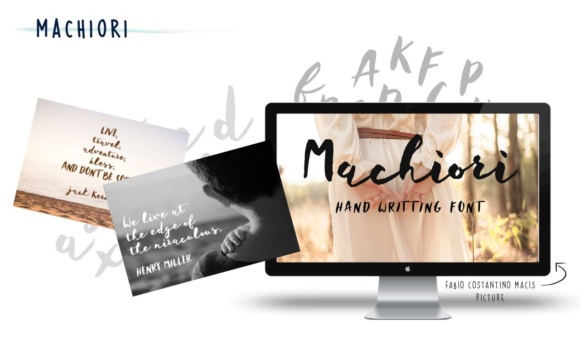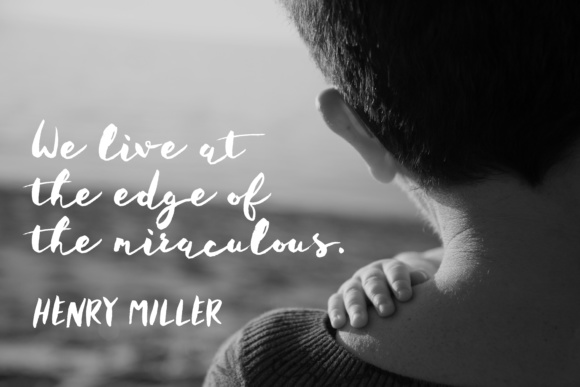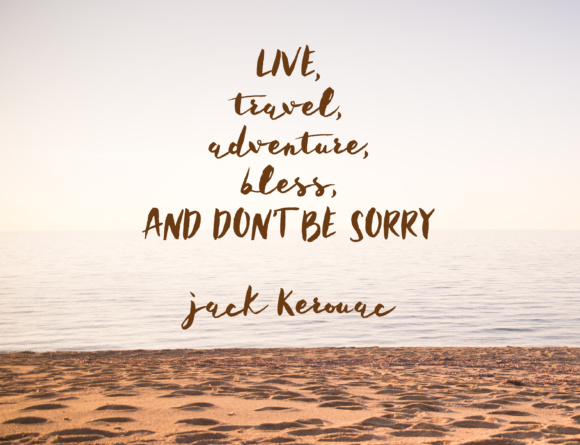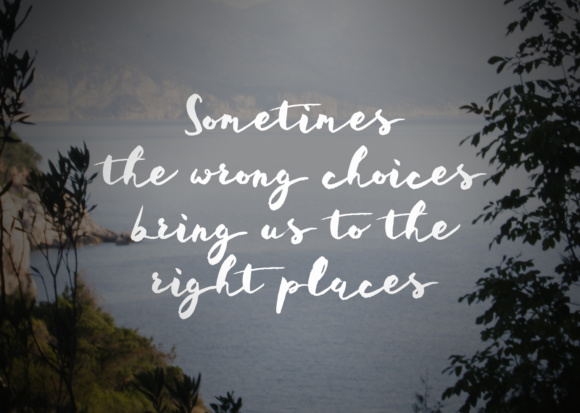
Introduction to Machiori Font
Machiori is a beautiful and easy-going handwritten font, perfect for use in a wide range of friendly and fashionable projects.
This bouncy cursive font is girly and bold, and can add tons of style in projects that need it most .